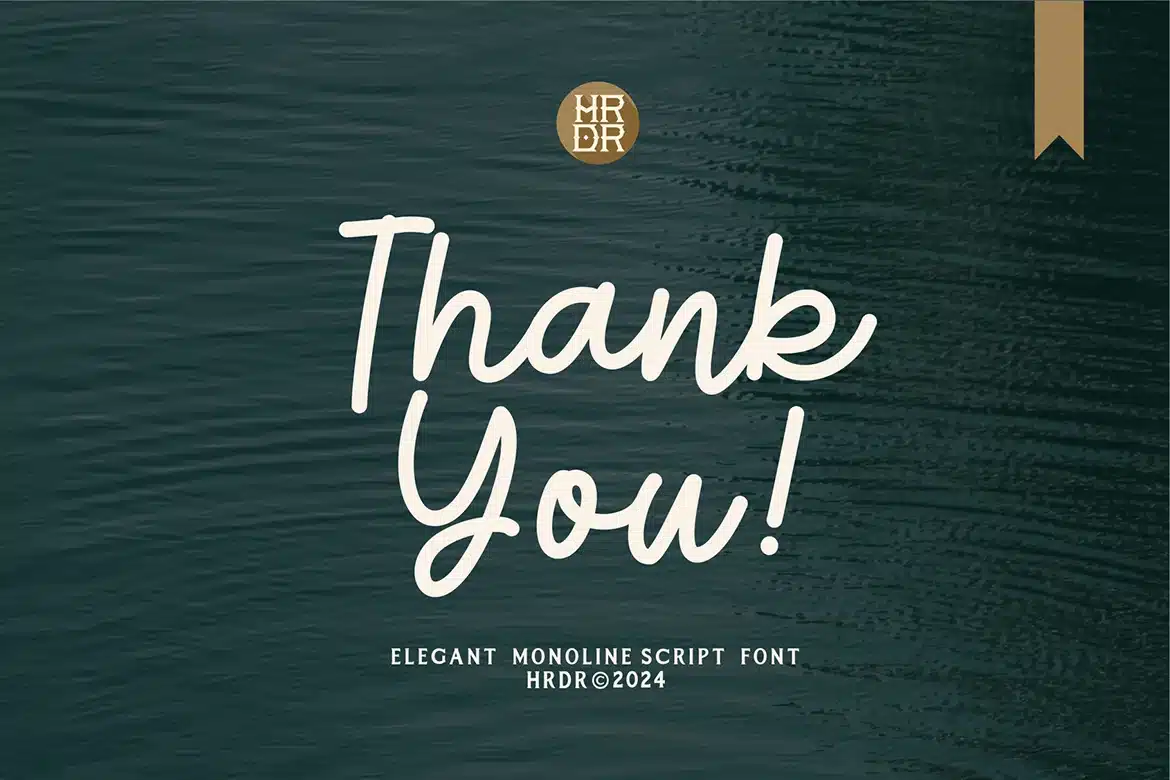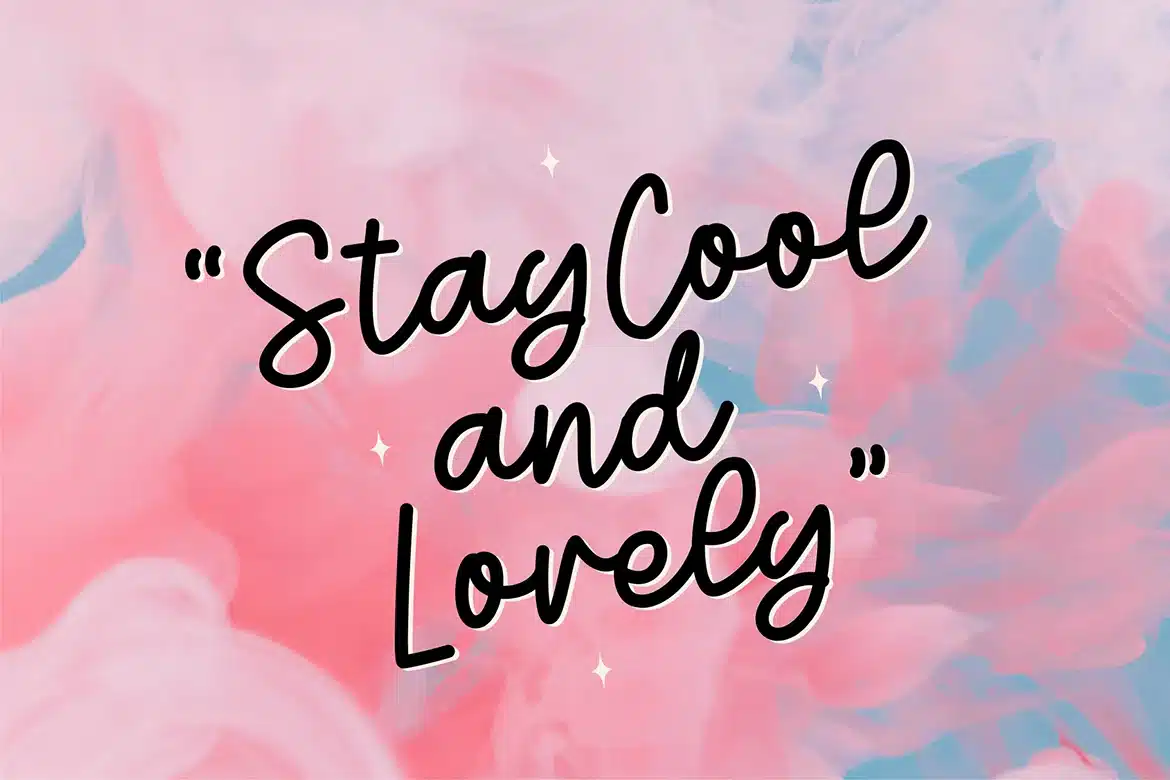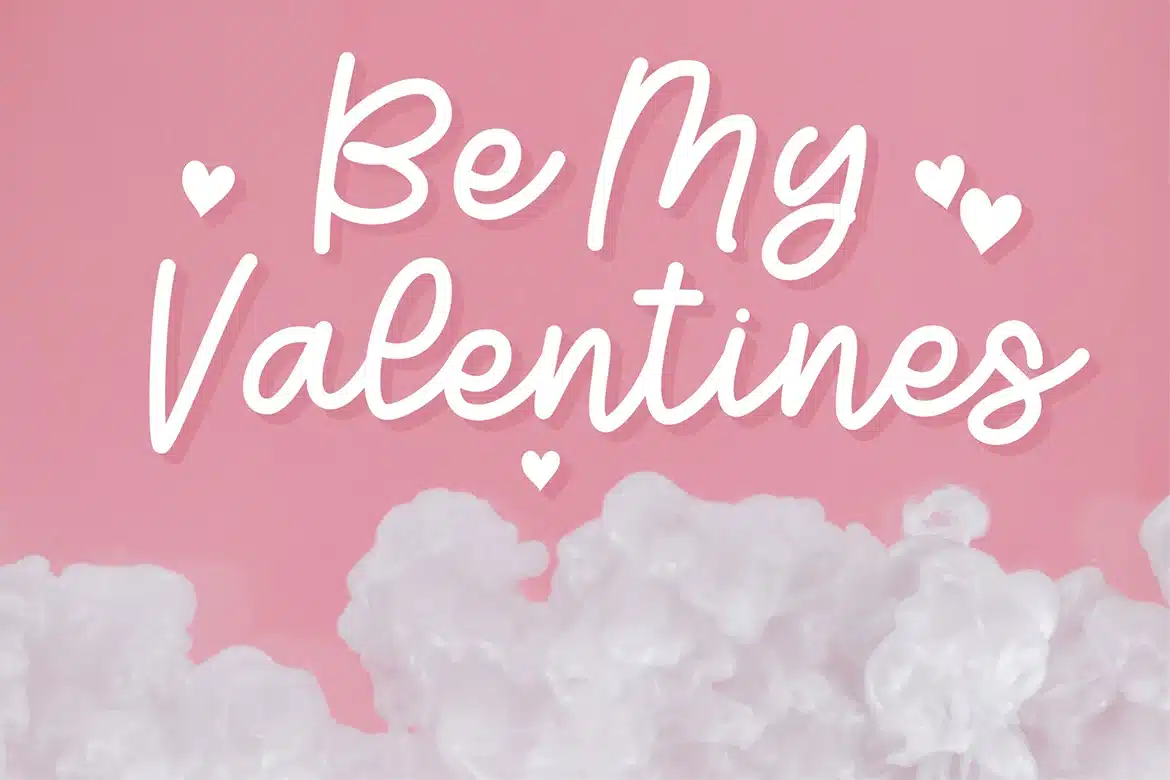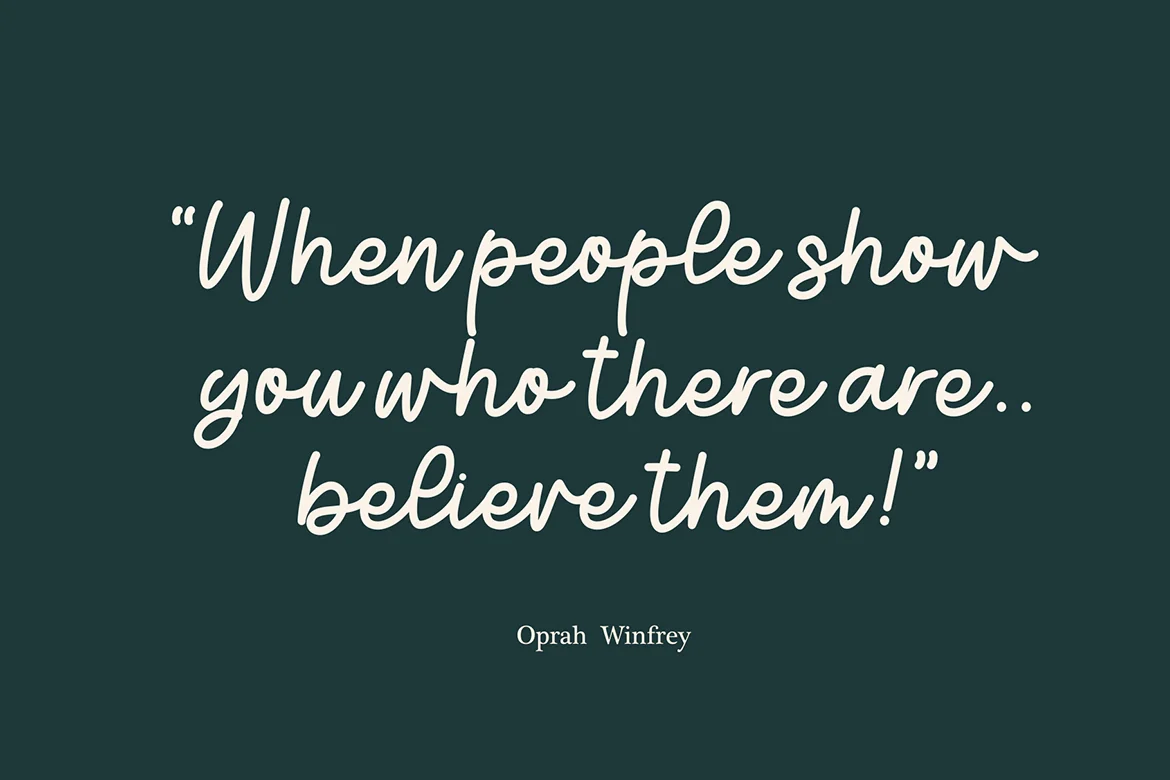
Beloved Magnolia Font
Beloved Magnolia is a quirky script font with monoline styled, perfect for crafting, branding, invitation, stationery, wedding designs, social media posts, advertisements, product packaging, product designs, label, Posters, photography, special events, or anything.